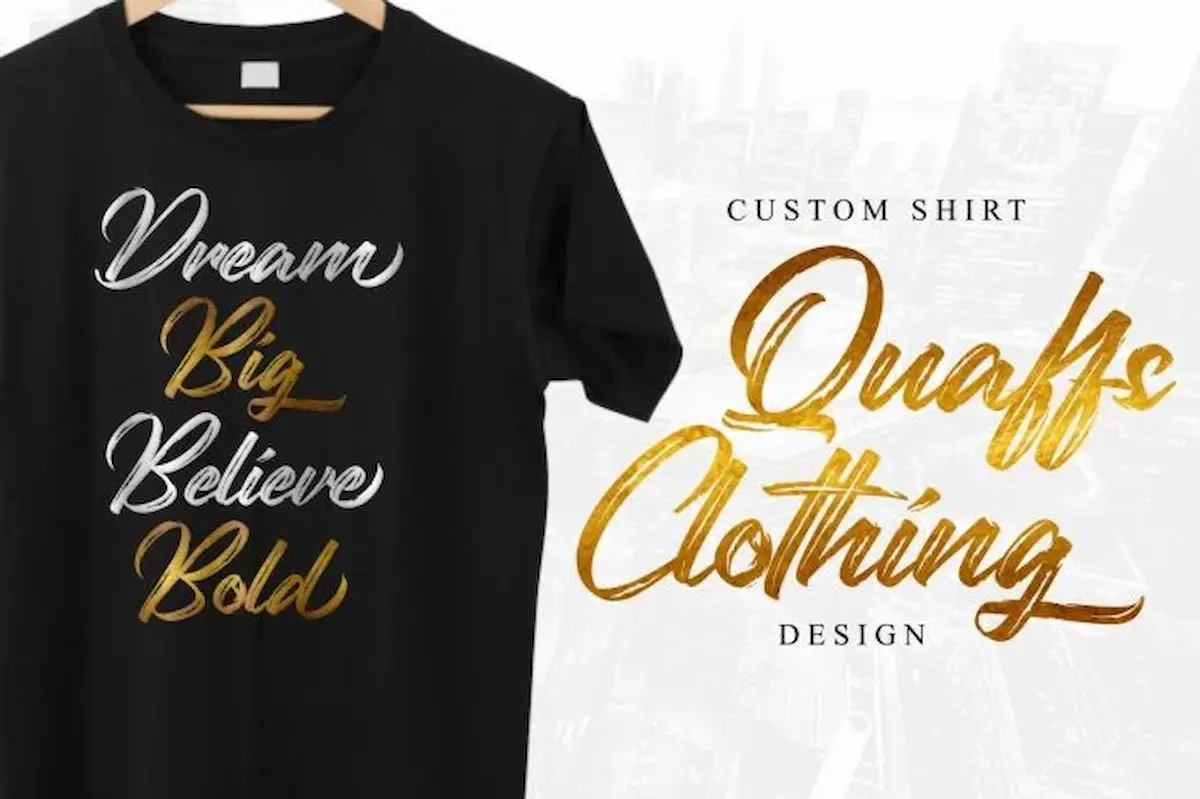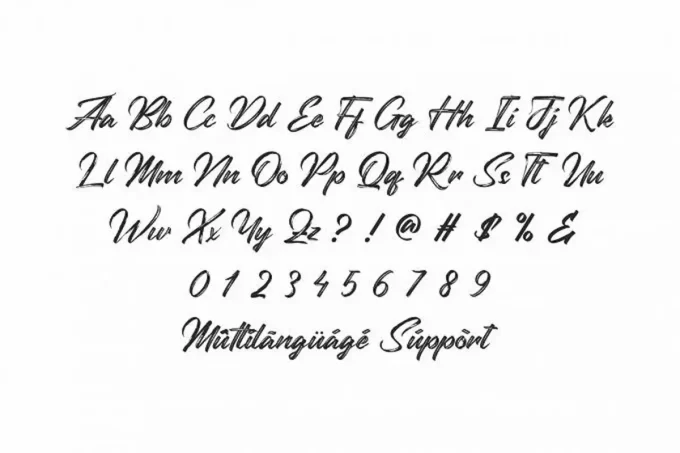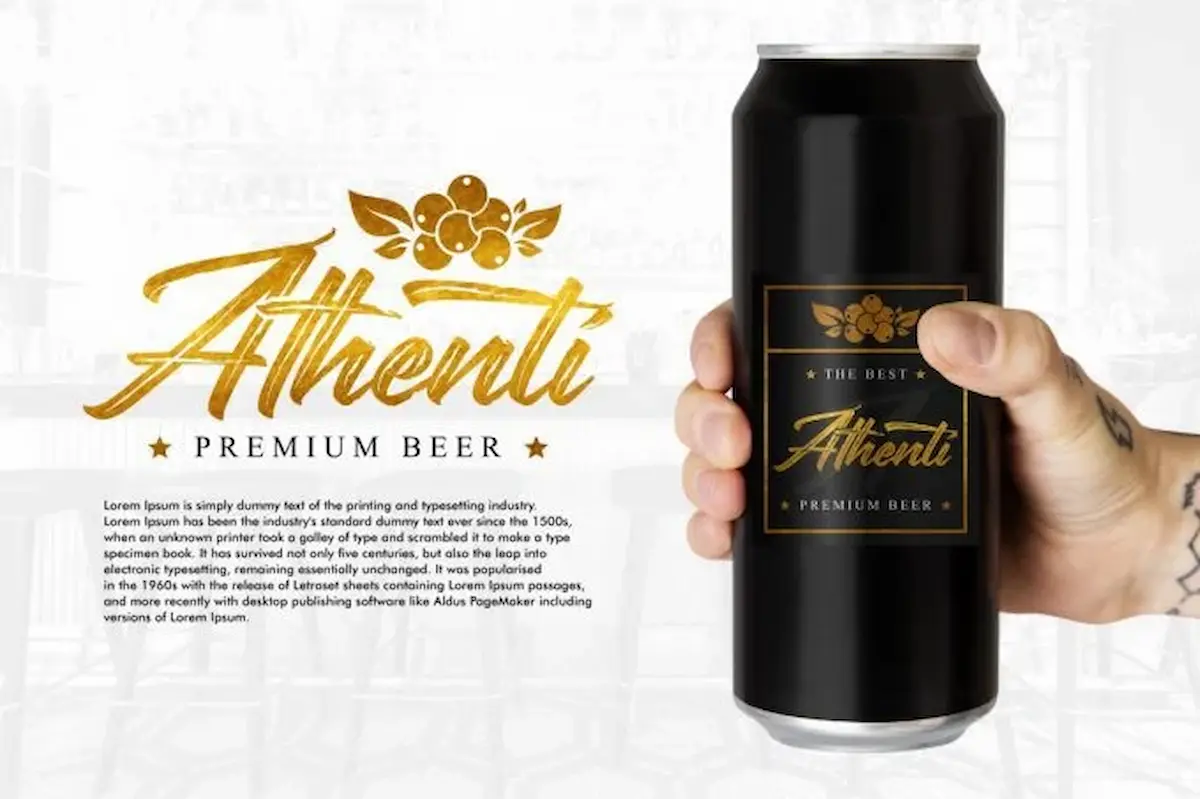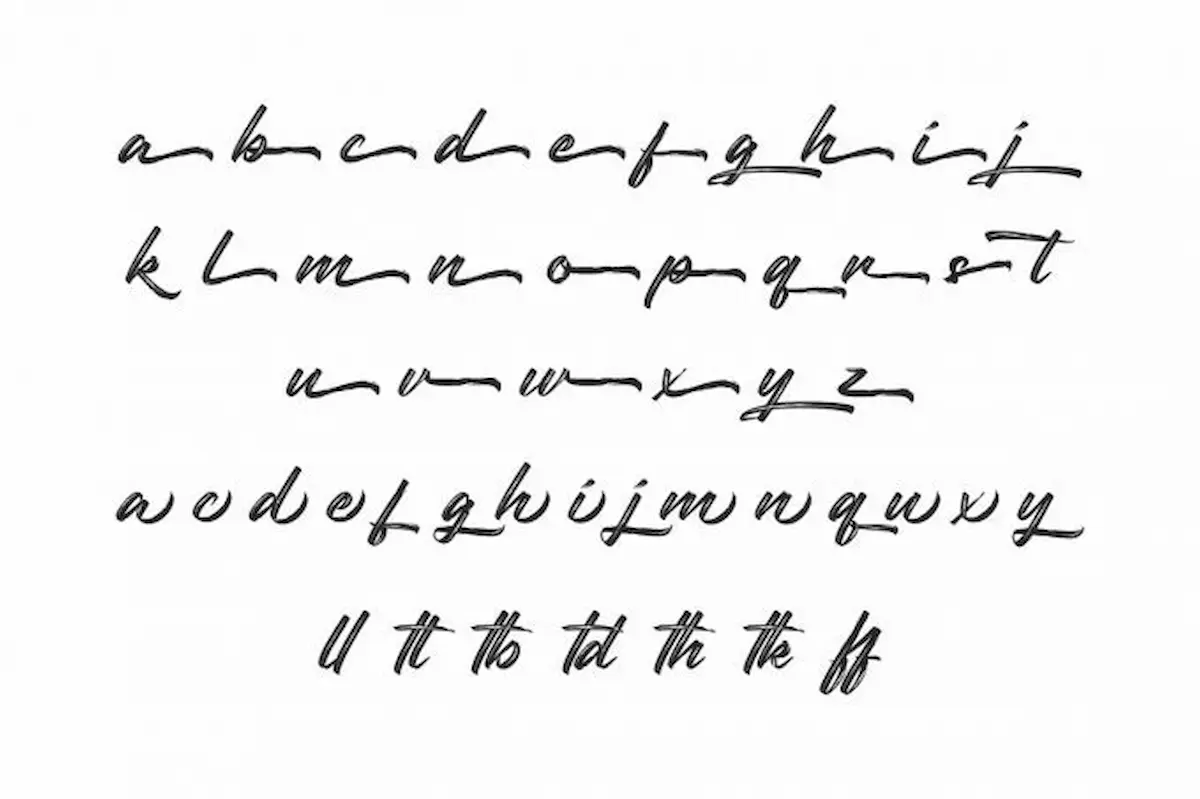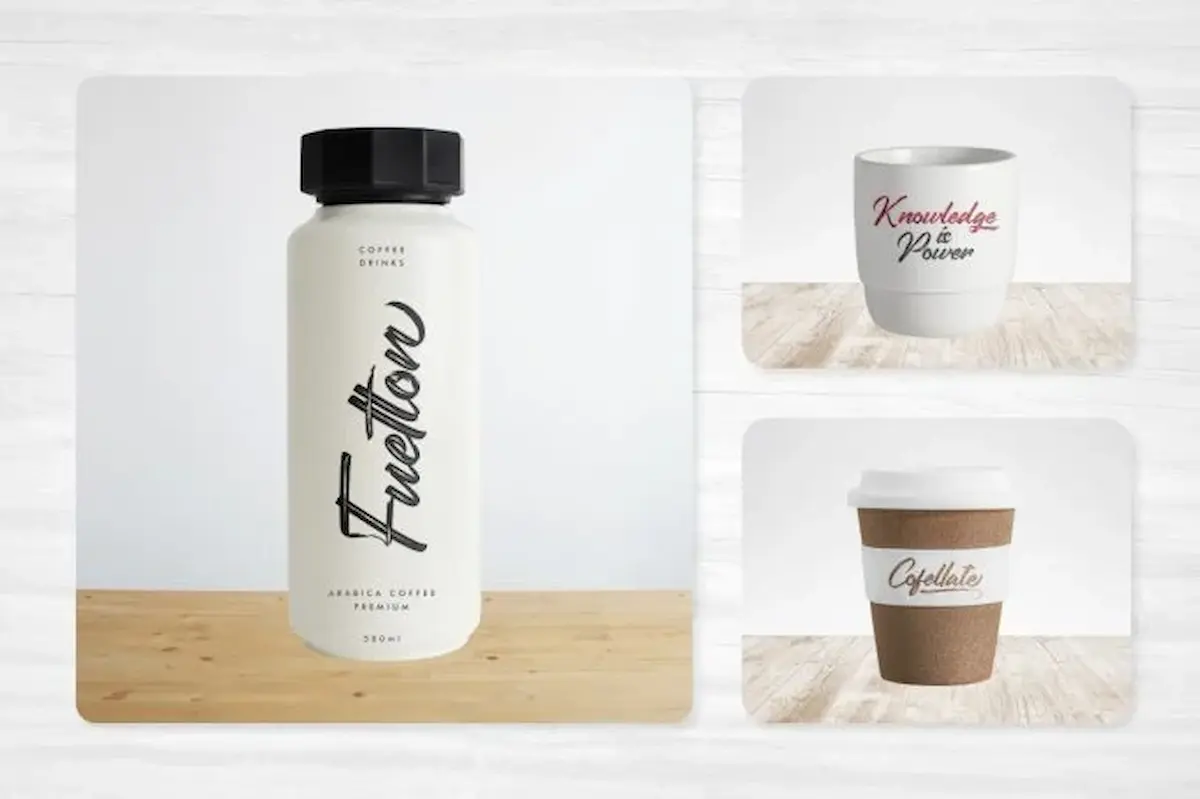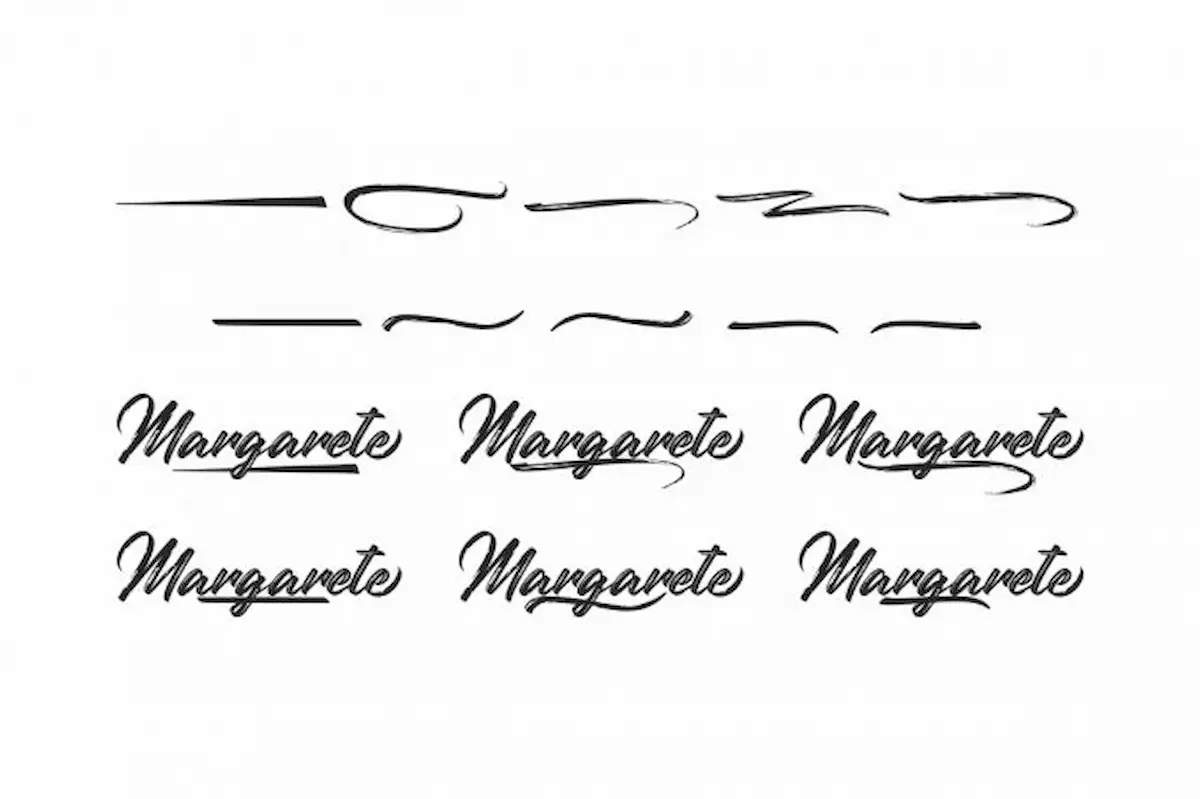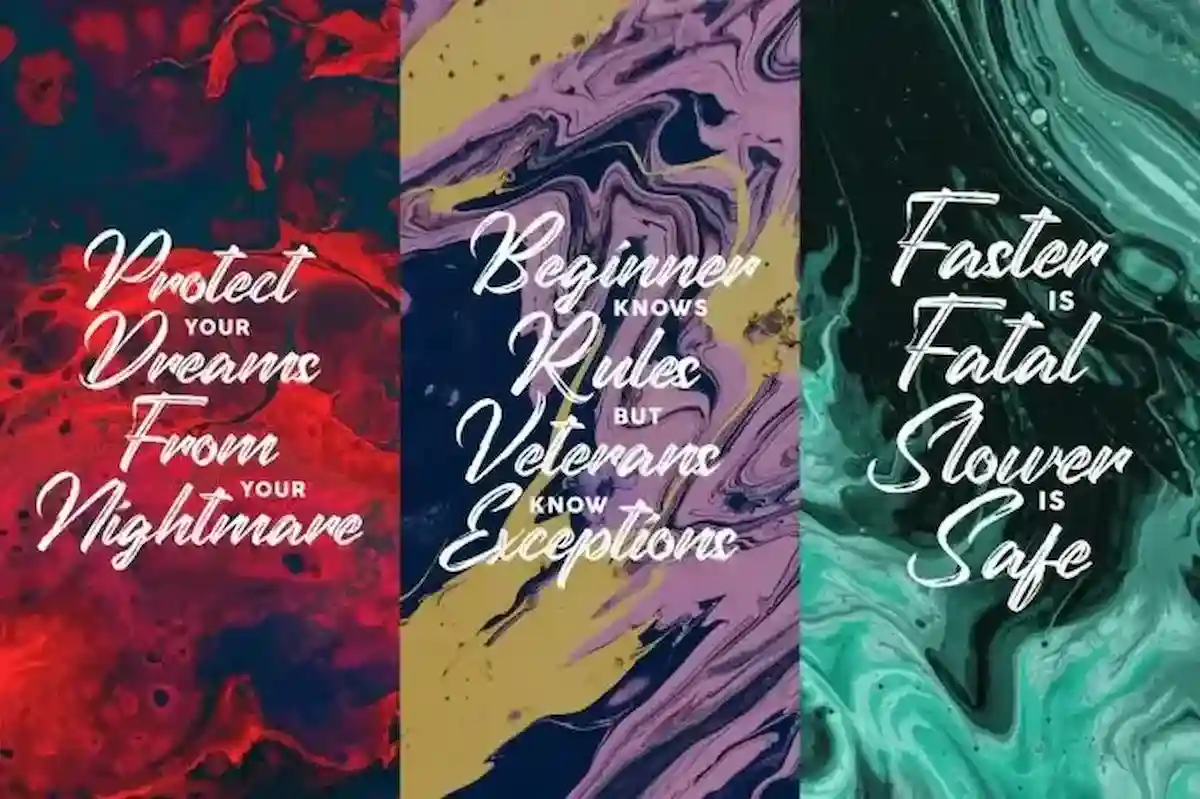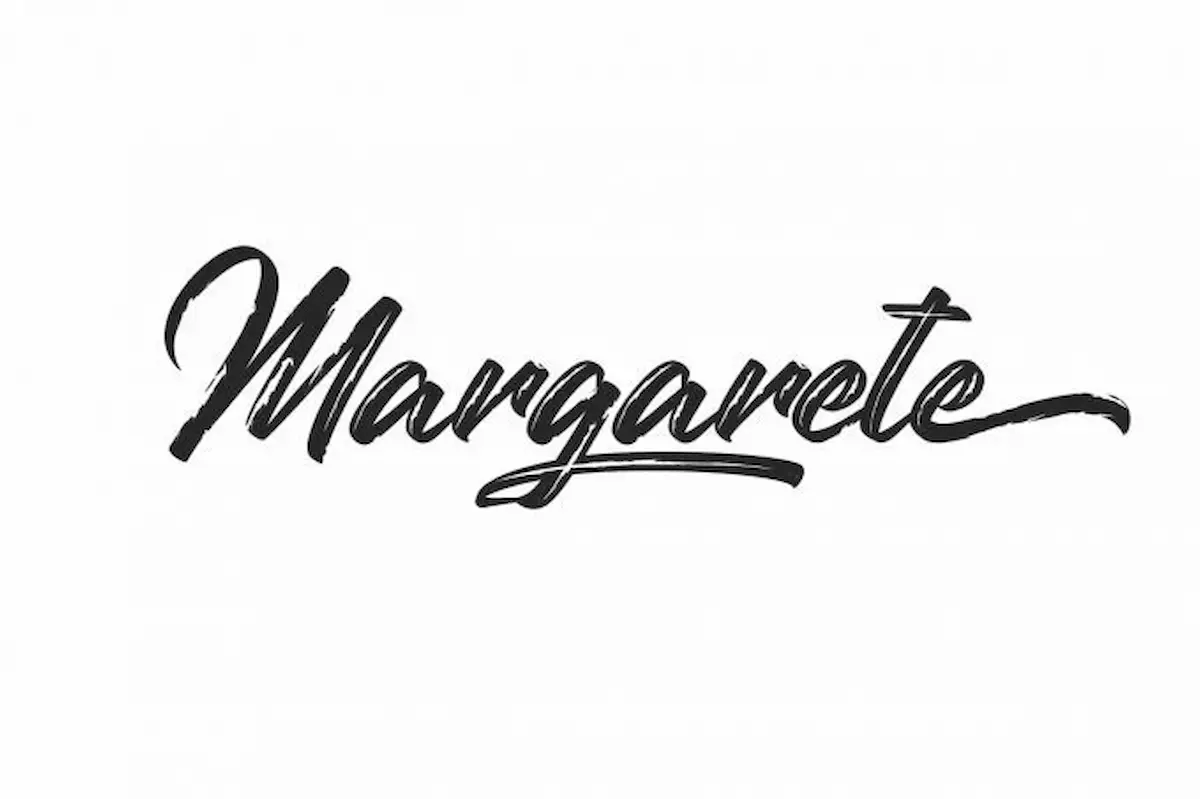
Margarete Font is a semi-dry rough brush script font by NihStudio. Made in Indonesia. Download Now Margarete Font.
Margarete Font is a rough semi-dry brush calligraphy font by NihStudio. Try the font by typing your own text below. Please note that the test font below is a demo file, so some specimens/ characters will not show up.
Margarete is a unique textured brush hand lettering font originally made in 2020 by NihStudio. On the package you will get :
Handcrafted here in our Studio , Indonesia. Margarete will be great for any projects (require extended license) including : branding, logo, stationery, business card, signage, flyer, brochure etc.
The theme style of the Margarete is unique, mysterious, dark, horror, movie, sporty, gamer, motorcycle brush style. The font will be match for this typeface: events, artist, musician, cafe, coffee, promotion, etc